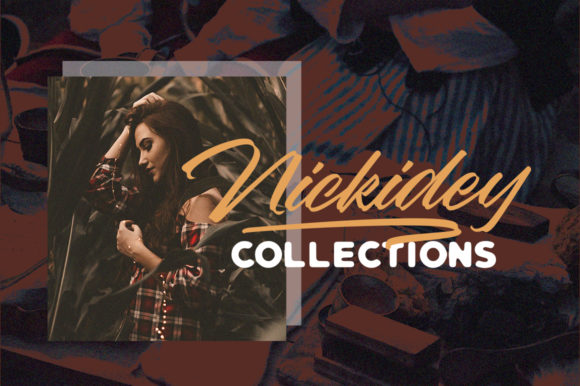
Botalies Kagetan Script Font
db-ku.com - Script & Handwritten -- The Kaget Botalies is an unique, cool and modern handwritten font. It’s handwritten style makes it perfect for logos, labels, packaging design, blog headlines, posters, and much more!